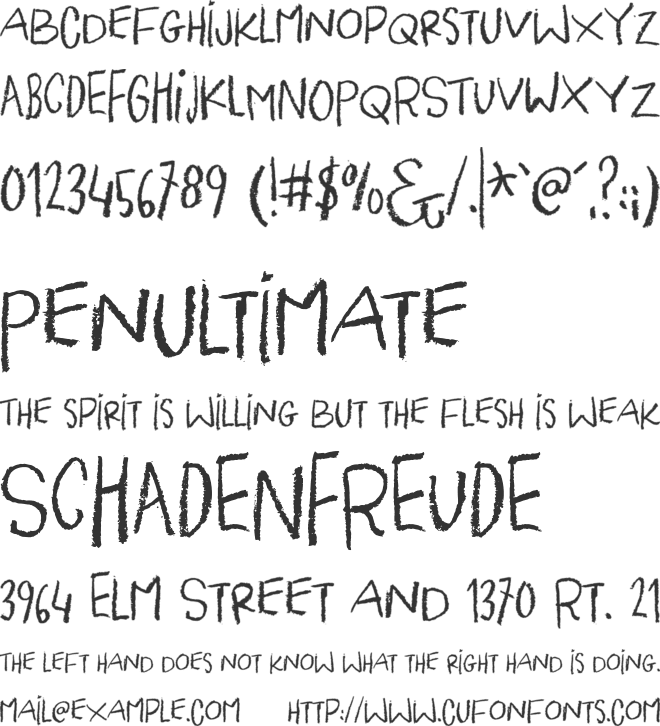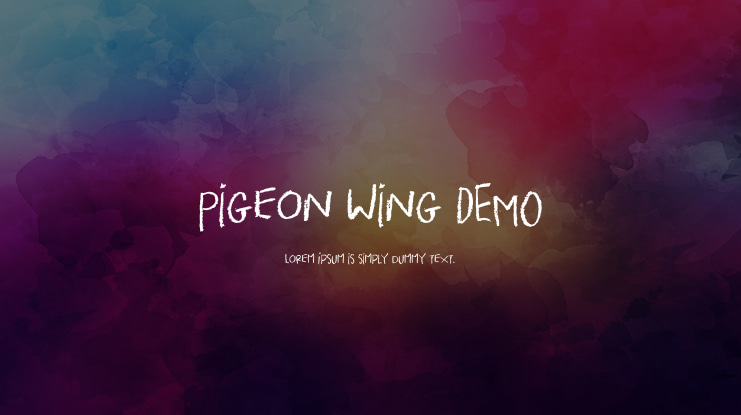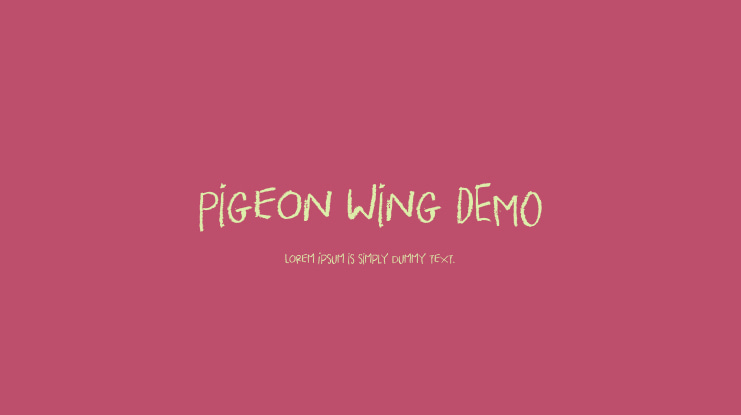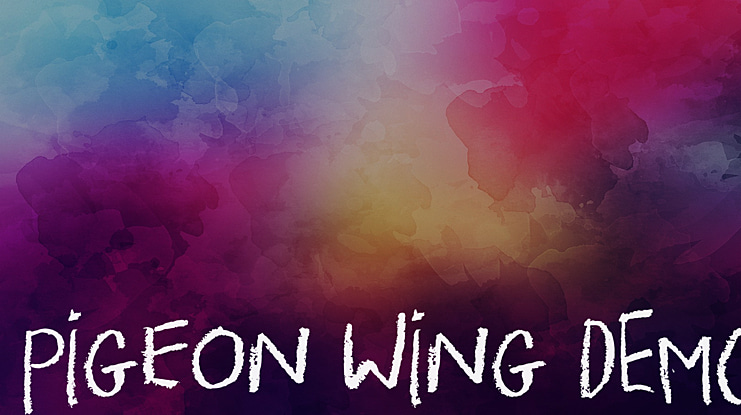
Pigeon Wing DEMO Font
Crayon fonts are fantastic!
I've always thought it looked so cool with fonts that simulate writing with crayons...but the fonts has always been limited in letters!
But that’s where my Pigeon Wing font stands out! Using the smart techniques of the OpenType thing called “Stylistic alternates”, you get 8 different versions of each letter! Yes EIGHT different versions that cycle as you write! That means words with the same letter appearing several times, cycles through the different versions!
Besides that, the font is loaded with multi language support!